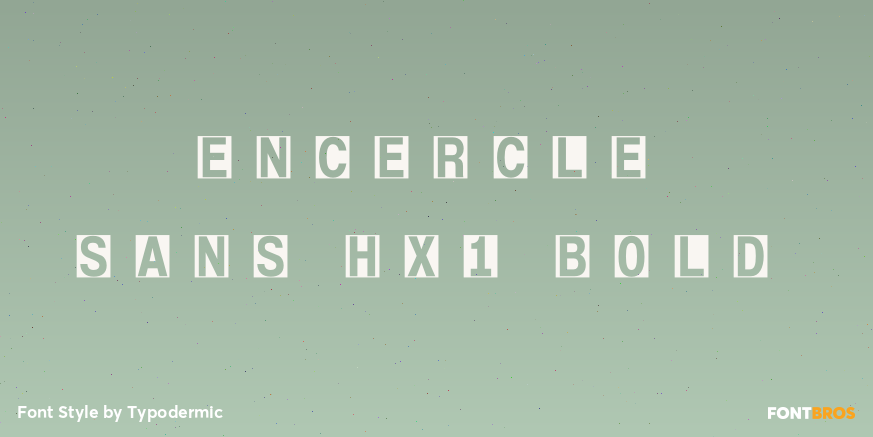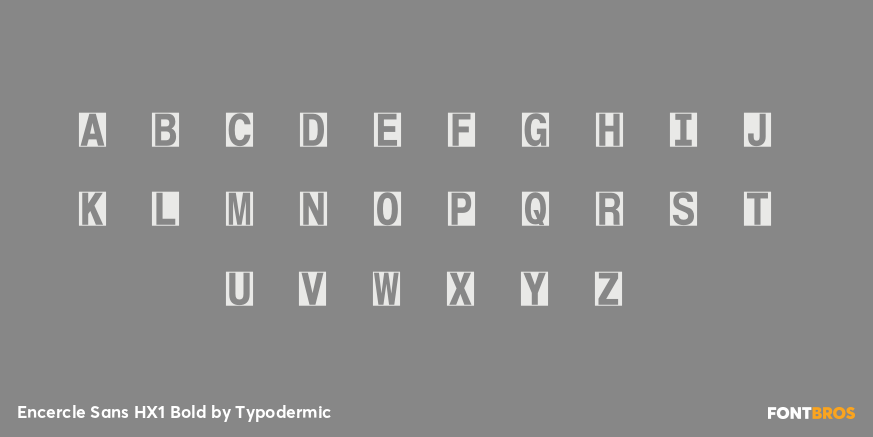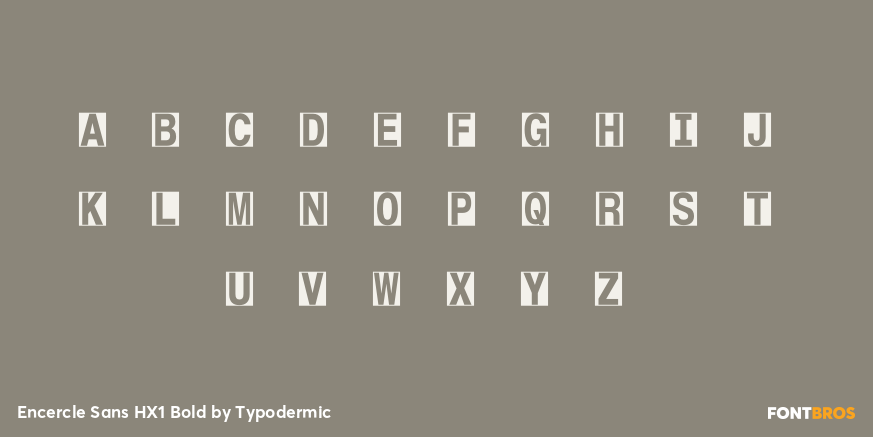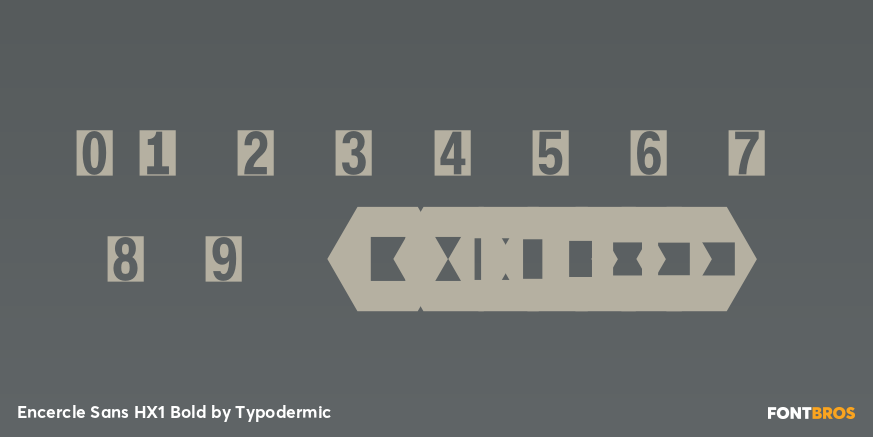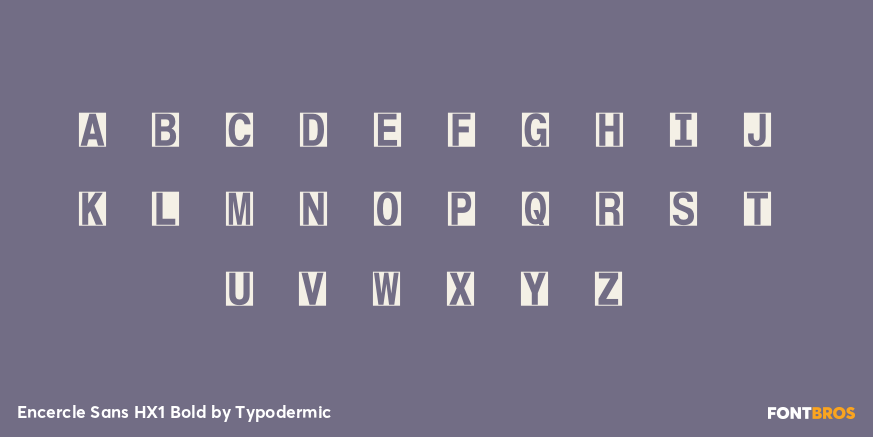
Encercle Sans HX1 Bold
Buy NowEncercle Sans HX1 uses a horizontally oriented hexagon whose broad middle gives longer identifiers more room than a circle or square. HX1 Bold is the solid inverse companion with light lettering. The Bold version creates a selected or emphasized marker instead of functioning as an ordinary heavy weight.
Use HX1 for equipment tags in engineering diagrams, network-node identifiers, fabrication component codes, and rack or cabinet references where compact technical labels run several characters. It fits searches for a horizontal-hexagon label font, equipment-ID font, or technical diagram marker.